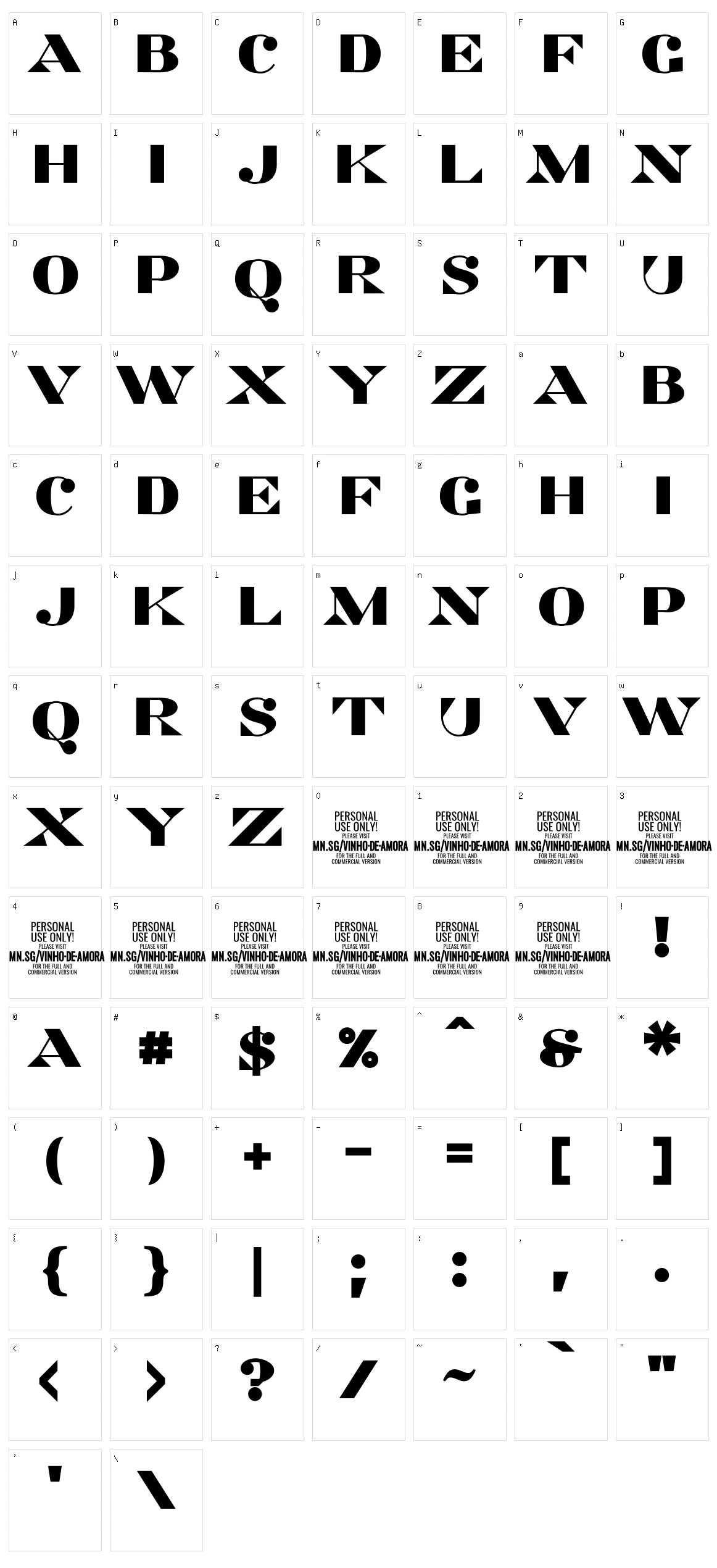
Vinho De Amora is a truly vintage serif font.
Drawn by Mans Greback between 2019 and 2021, this font is created with inspiration from wine cellars, painted typography and genuine quality produce.
It has a distinct sharp character, steady legs and a bold and wide appearance.
The Vinho De Amora family consists of three styles: Black, White and Stencil; each one geometrically consistent and complimenting, perfect for stacking on top of each other to create more variations.